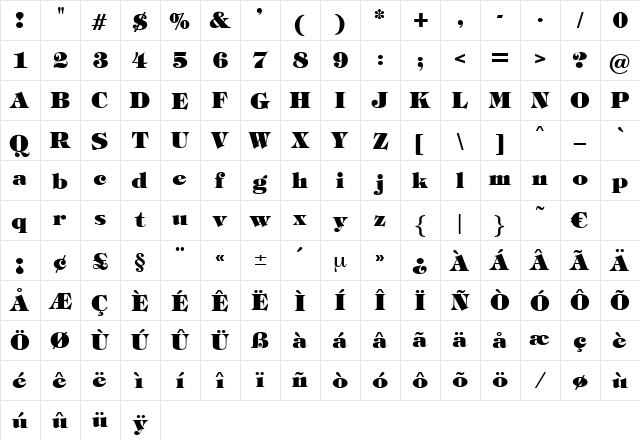
Strawberry Regular
Design Context for Strawberry Typeface
Strawberry offers clean, dependable letterforms without strong stylistic allegiance, making it a practical choice for designers who need flexibility.